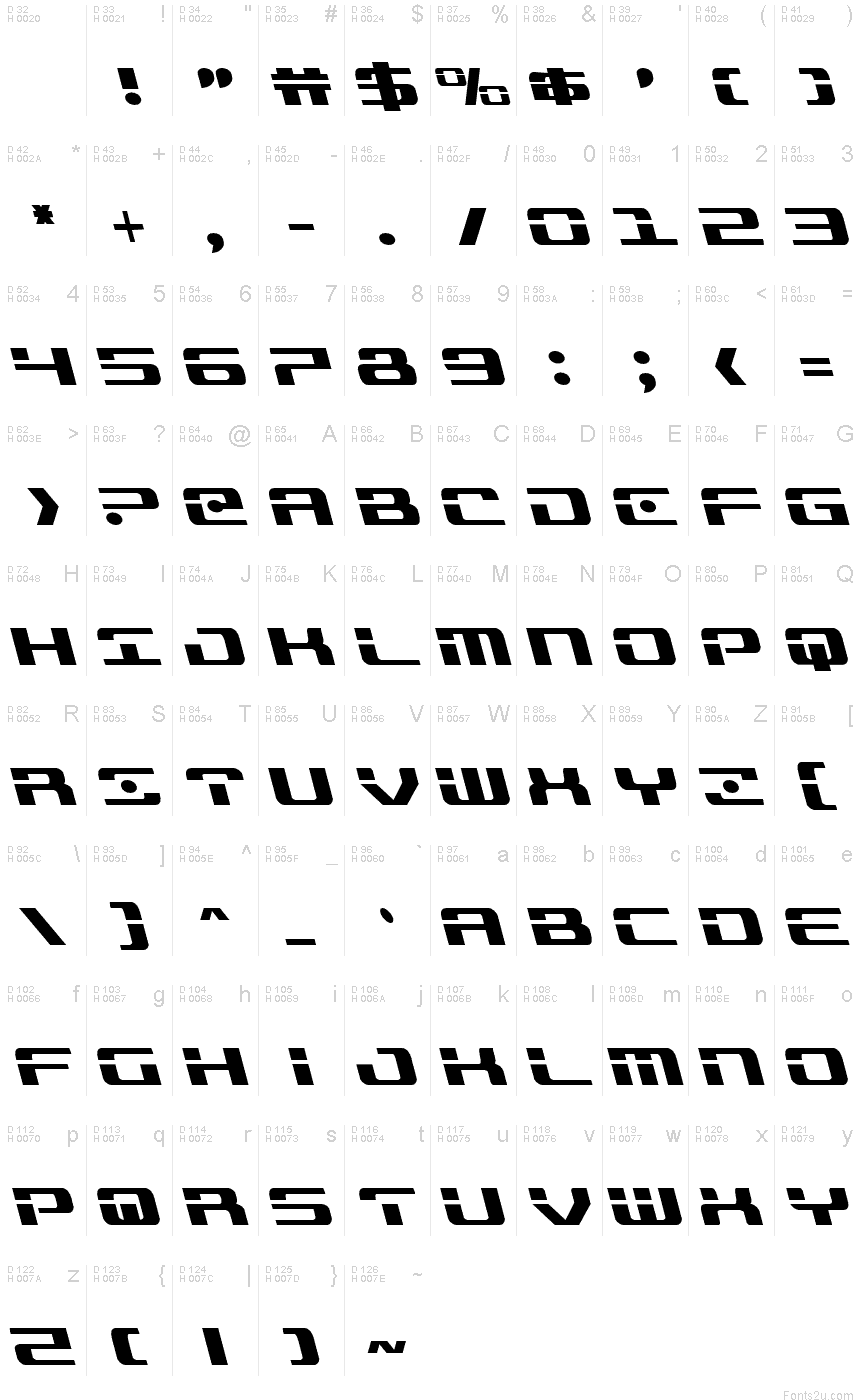
Troopers Leftalic by Daniel Zadorozny of Iconian Fonts is a free futuristic decorative display font with broad, weighty letters and a pronounced forward-driving profile. Rounded corners and sharp cutouts give the forms a machined look.
Illustrations of spacecraft, armored vehicles, and high-speed technology can echo those sliced shapes in game covers, film graphics, and event posters. The recurring horizontal gaps also suit motorsport merchandise, where they suggest vents, panels, and markings drawn from engineered surfaces.
Troopers Leftalic